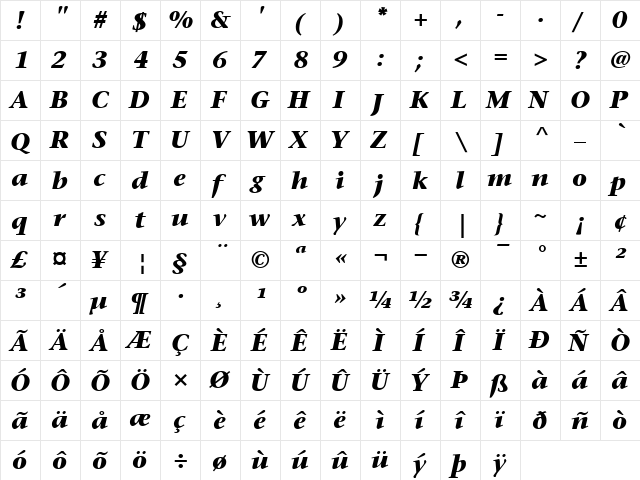
ITCStoneSerif BoldItalic
Design Context for ITCStoneSerif Typeface
ITCStoneSerif brings classic typographic sensibility to the table — its serifs and measured letterforms reflect centuries of print heritage. The dynamic lean of this cut emphasises speed and emphasis in any layout. The heavy weight commands attention and anchors typographic hierarchies.
Pro Tip: Use ITCStoneSerif for editorial body copy and considered headline work. Pair with a neutral sans for UI elements or captions to create a classic hierarchy.